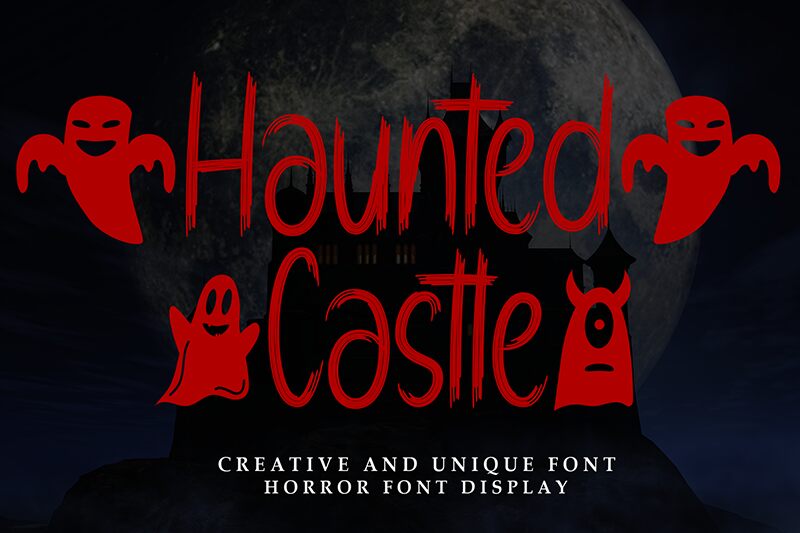
Haunted Castle
Haunted Castle font by Andi Moz is a condensed Halloween brush font featuring a haunting grunge aesthetic. With jagged, irregular lines, it captures an eerie mood ideal for haunted artistic projects. Its frightening look presents endless creative possibilities for designers looking to scare and surprise their audience.
Make use of Haunted Castle for Halloween cards, invitations, branding projects, posters and flyers, packaging designs, website design particularly hero scenes or background images among others. Even book cover designs can feature this bone-chilling free font to add suspense!